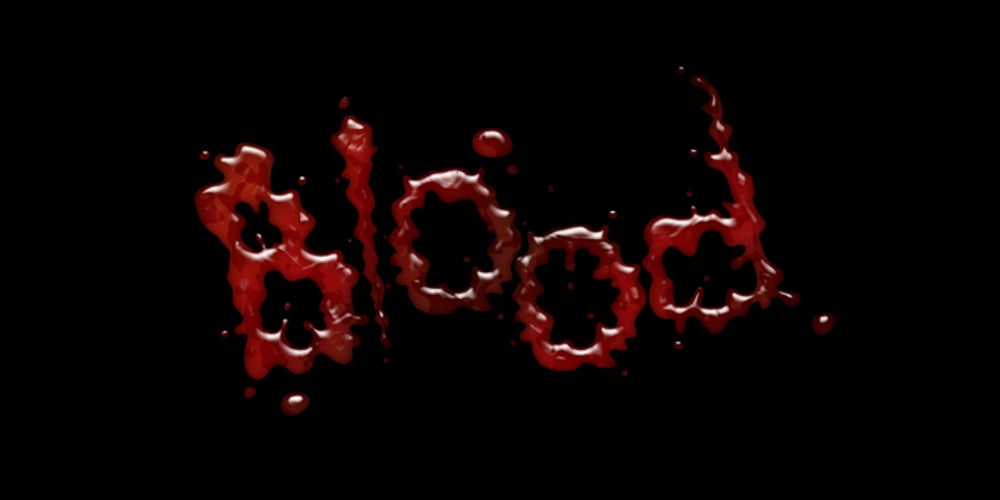
Alt Wet Font Family was designed by Andreas Leonidou and published by ALT. Alt Wet contains 1 styles and family package options. Wet is a experimental typeface — I drew all the glyphs by hand. I came up with this font idea after all the positive comments I received from my Type Treatments project I publish recently on Behance .